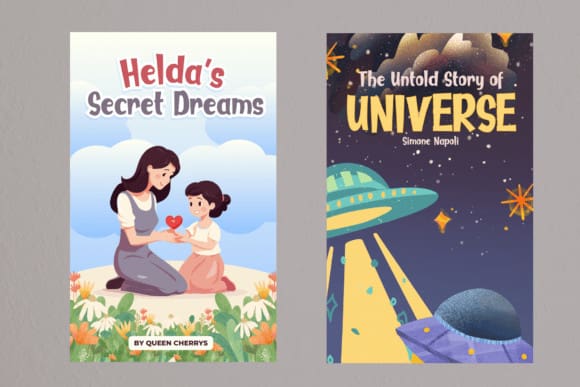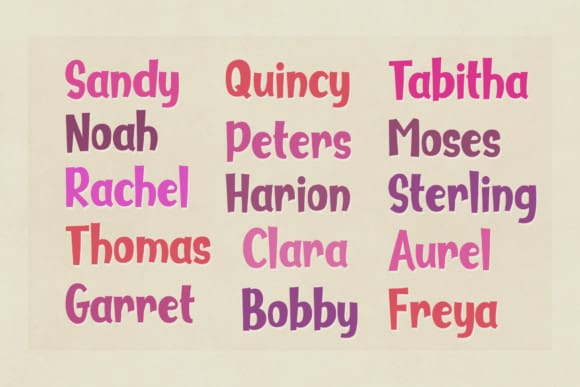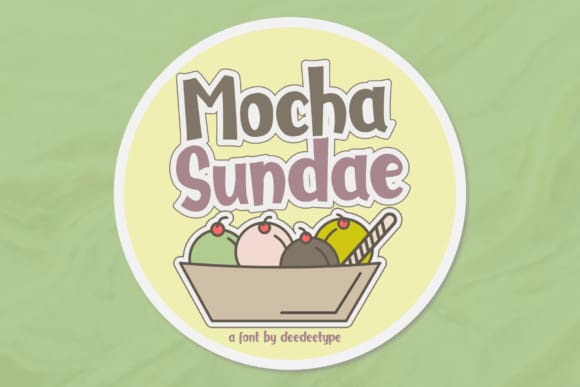
Mocha Sundae Font
Mocha Sundae Font, a quirky and friendly handwritten style font. Its natural and unique style makes it incredibly fitting to a large pool of designs. The only limit is your imagination!